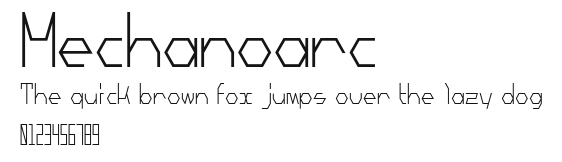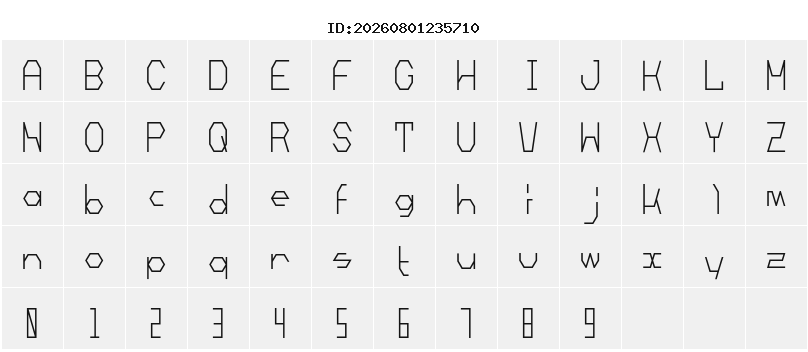
• Font Name: Mechanoarc
Mechanoarc.otf is a modern, elegant sans-serif font designed for ultimate readability and visual harmony. Perfect for branding, headlines, web design, and print materials.